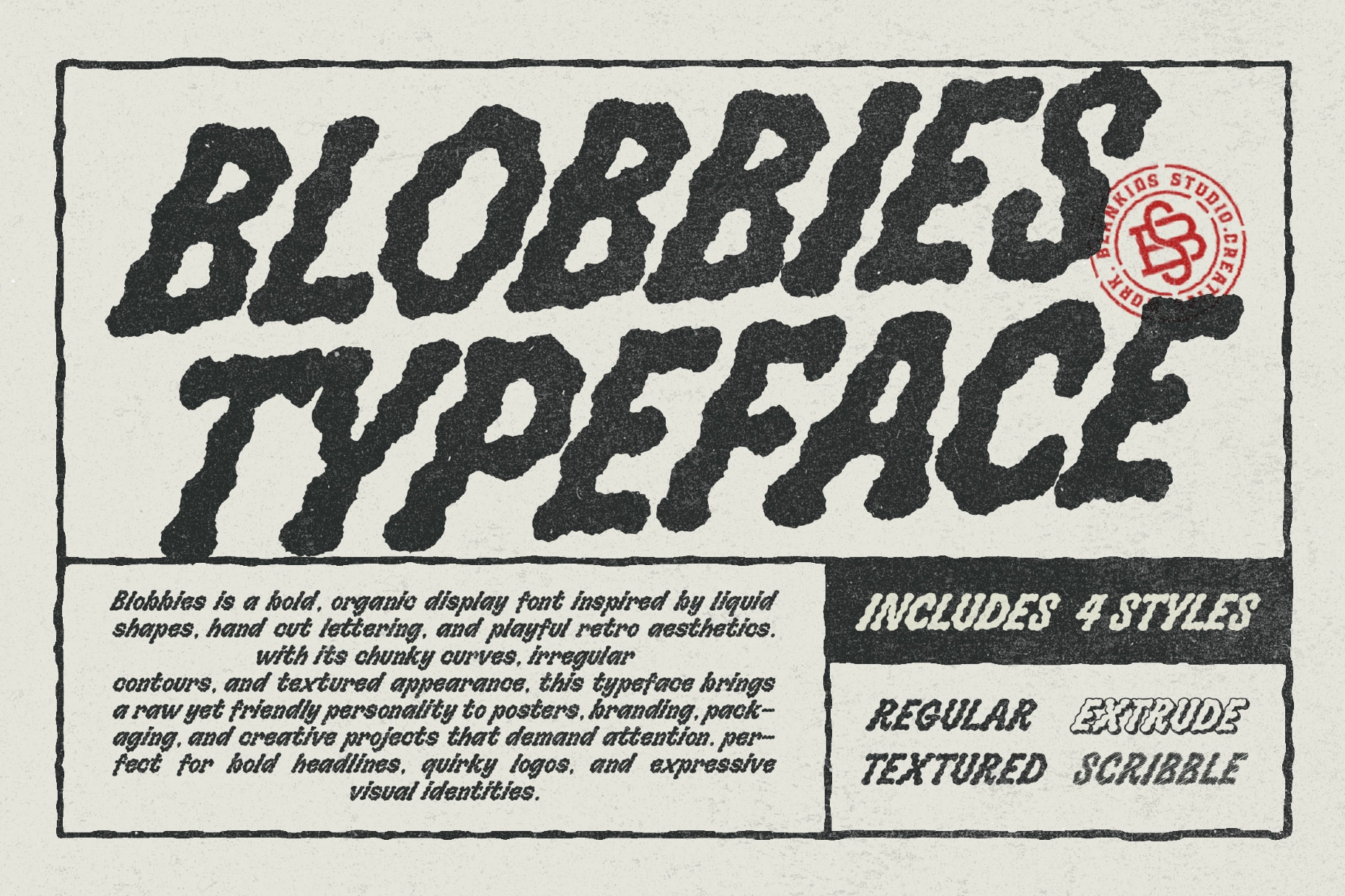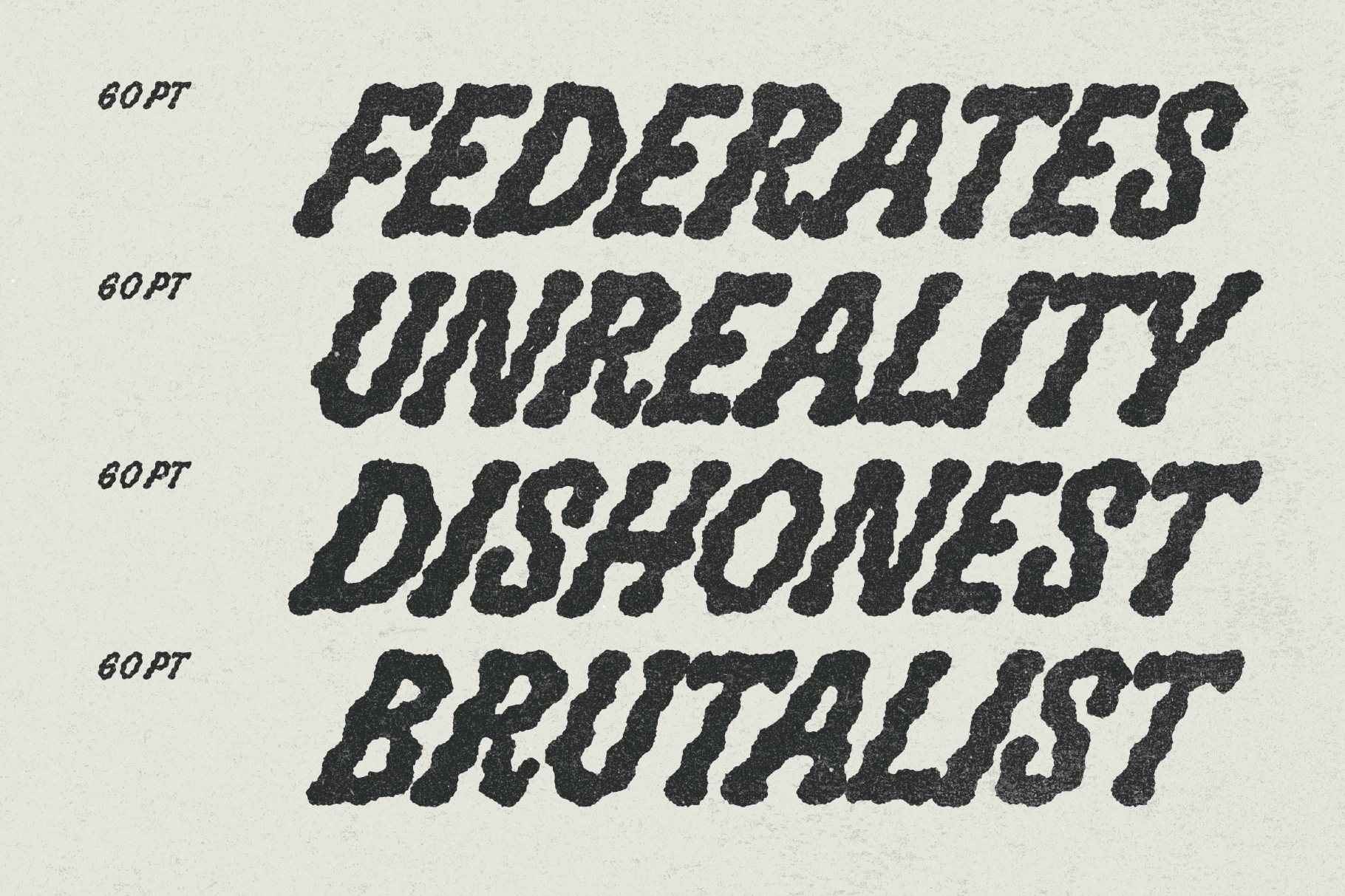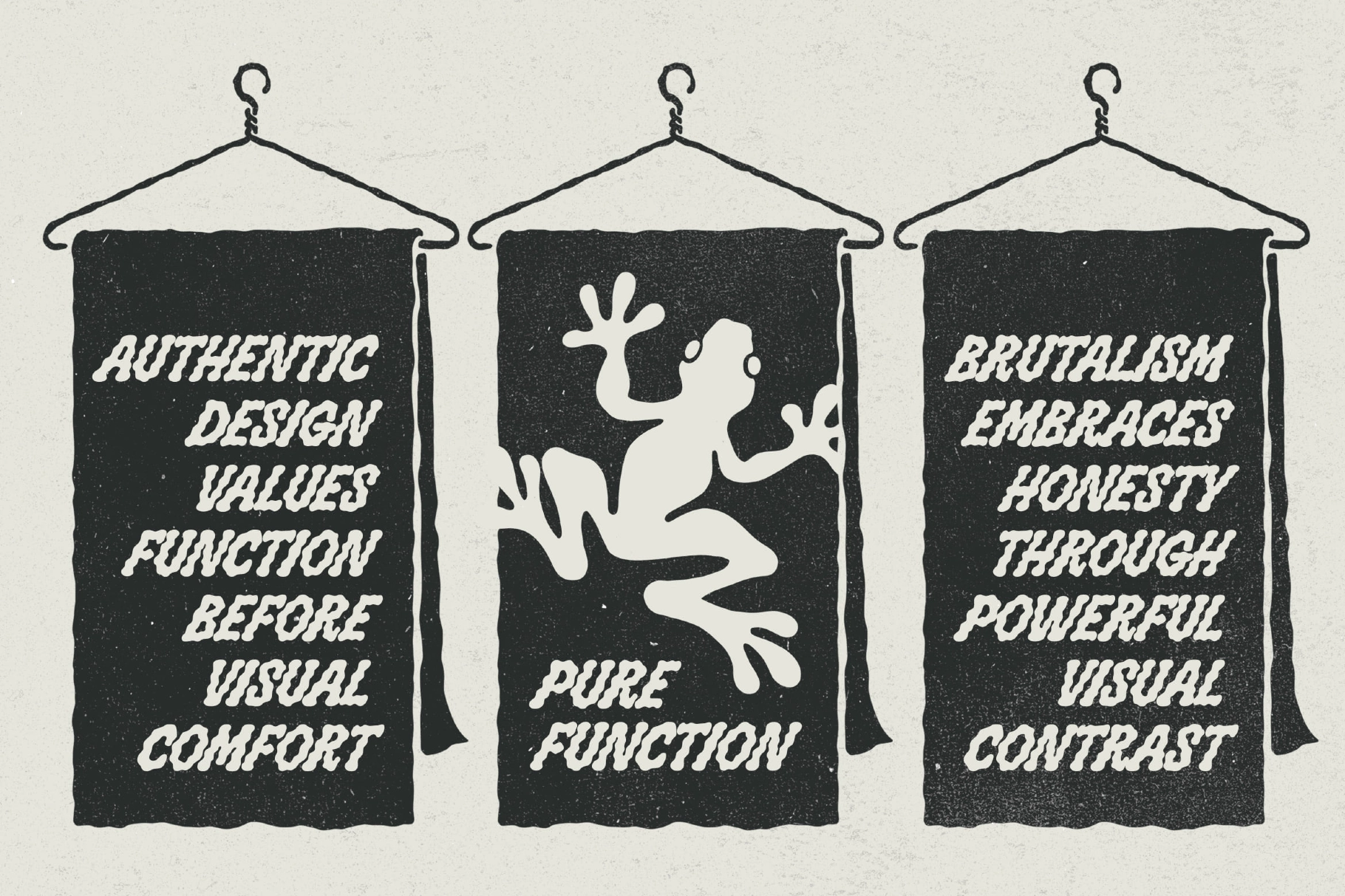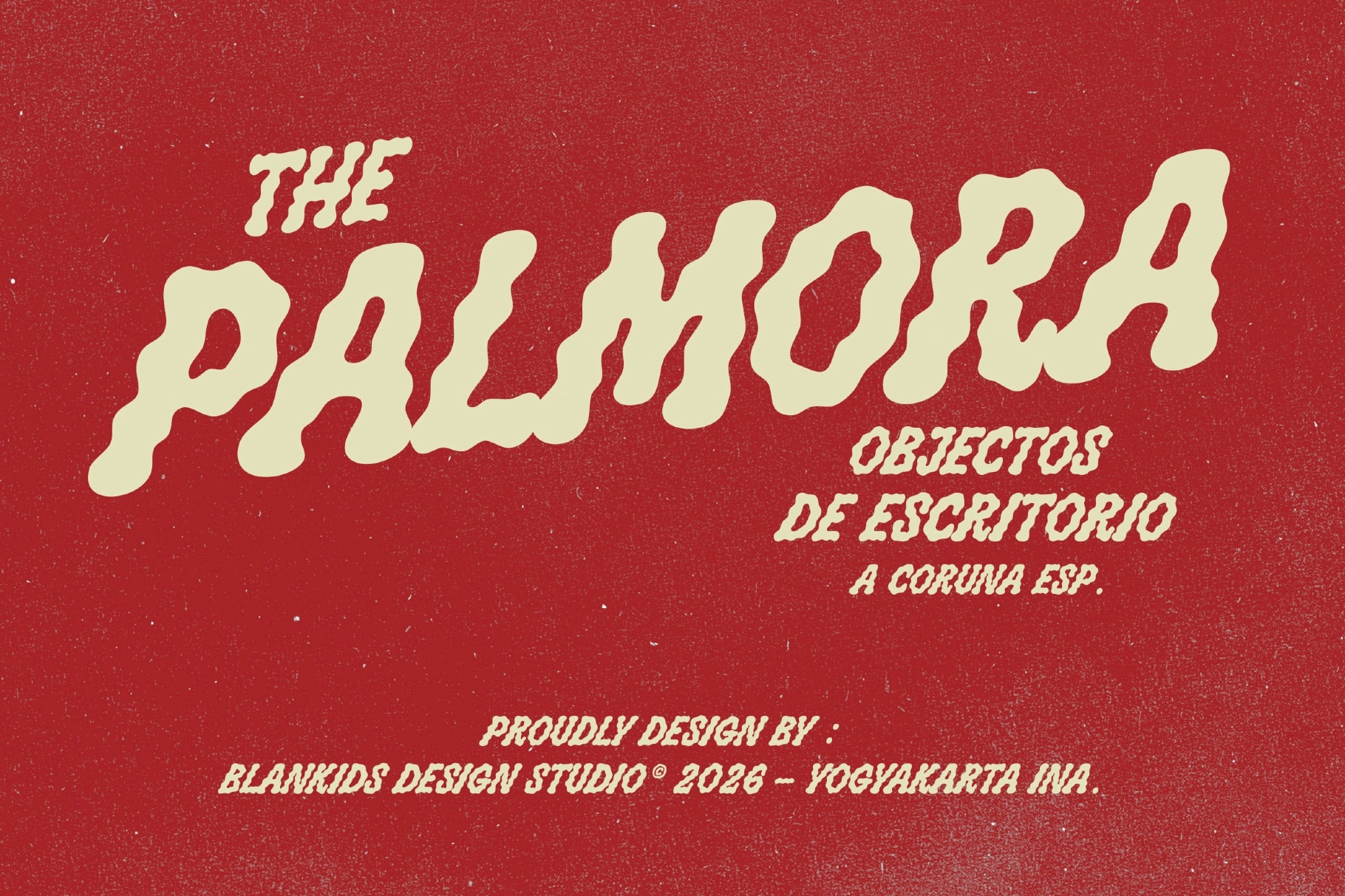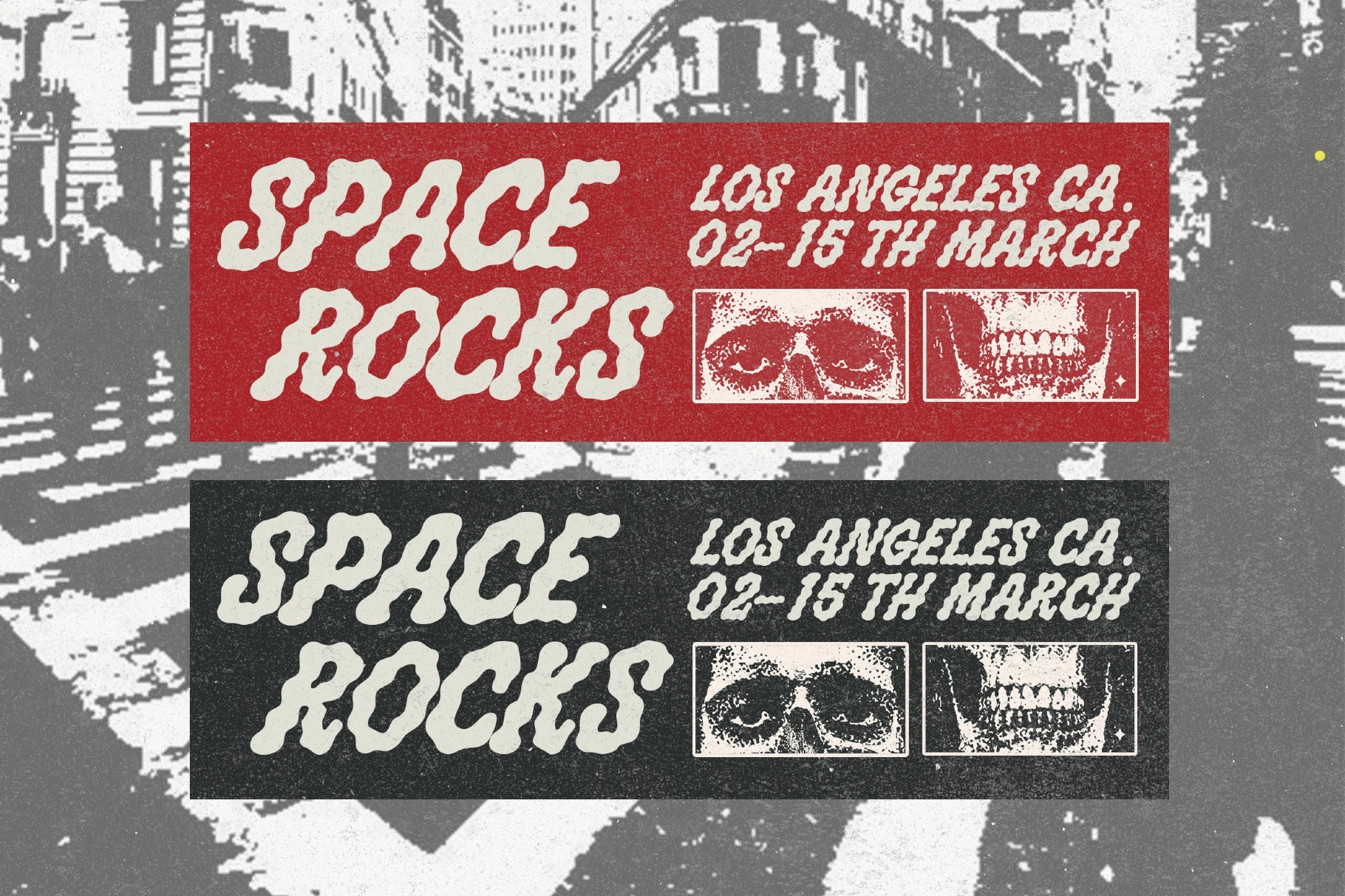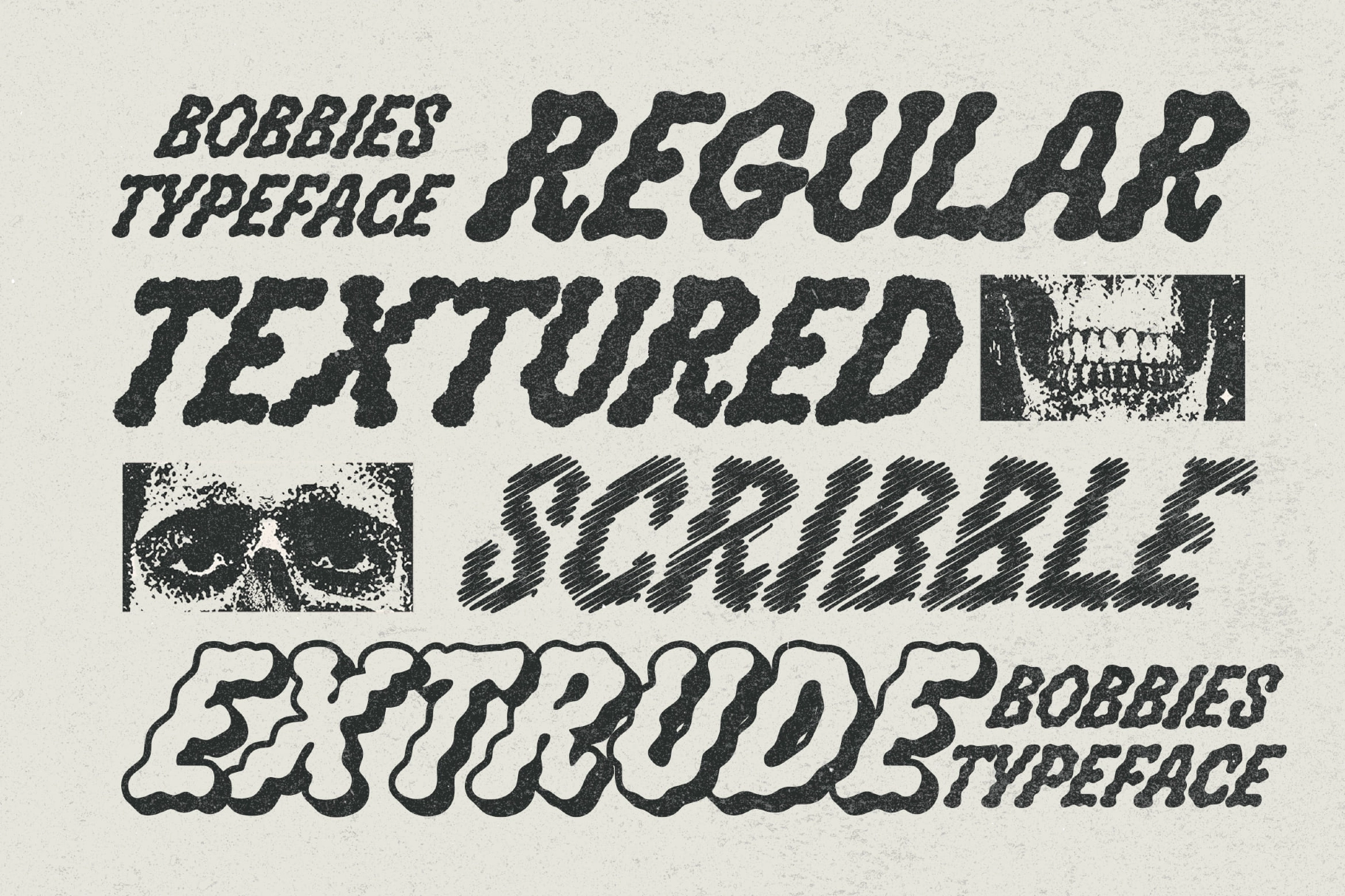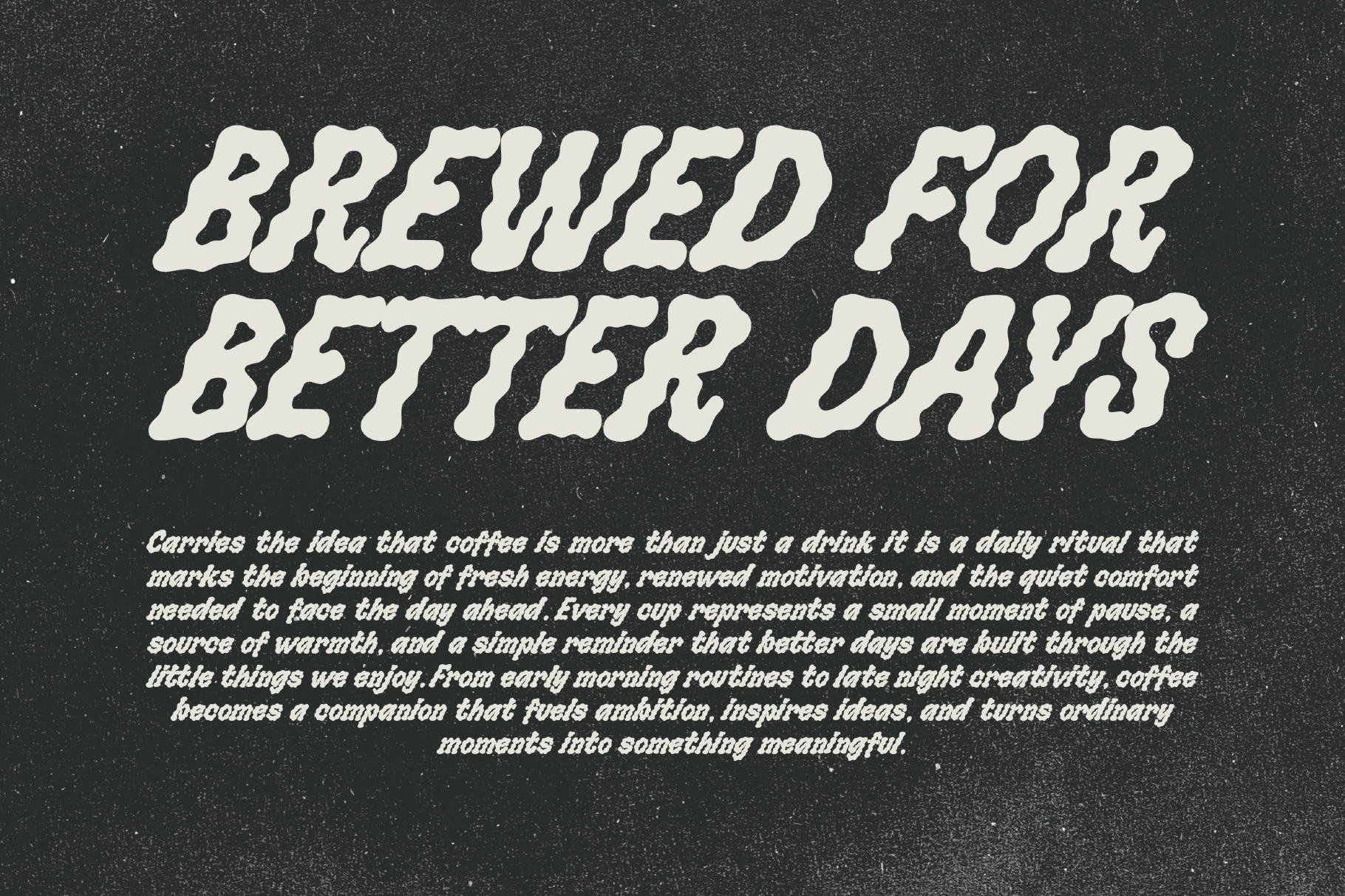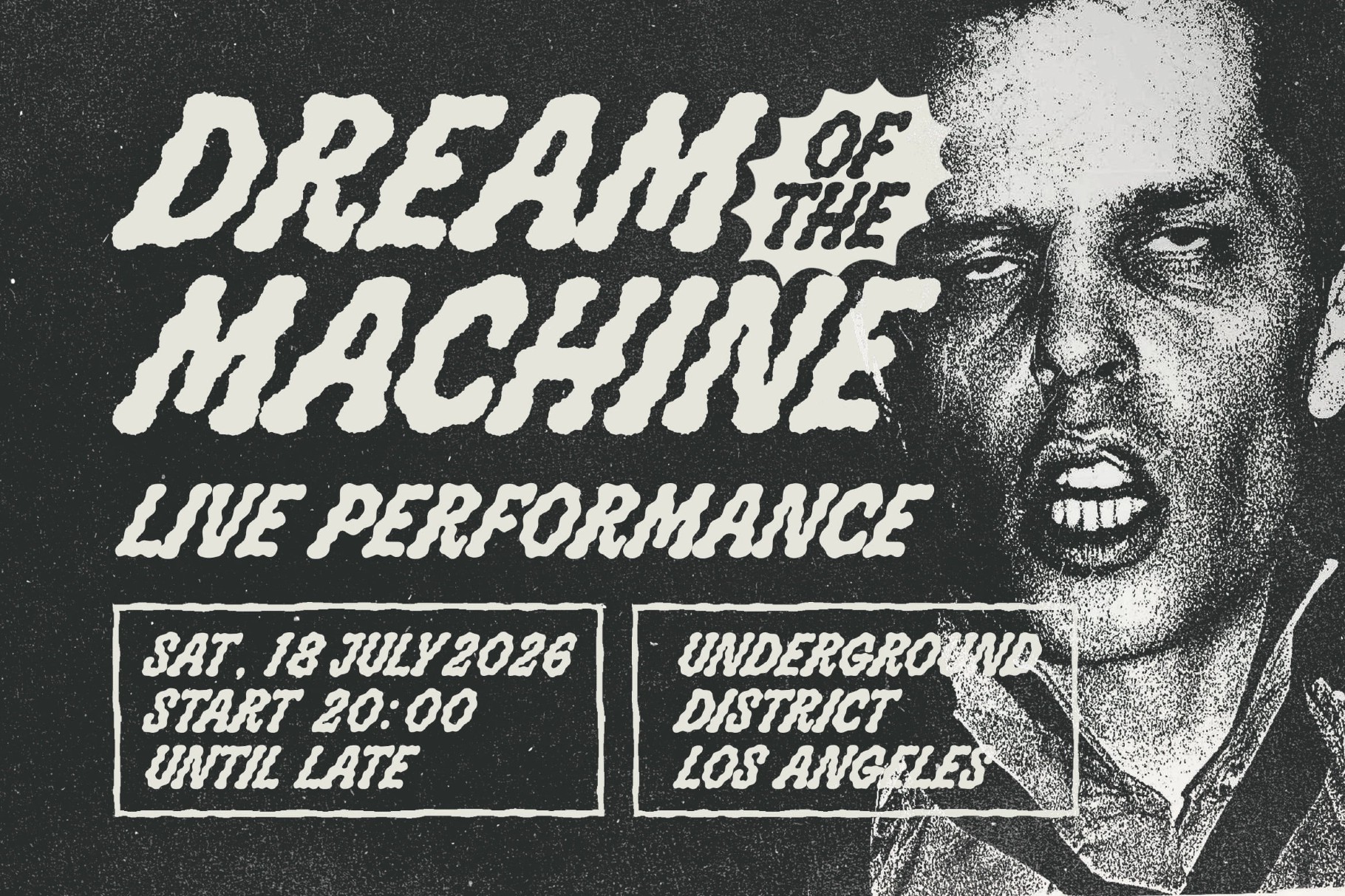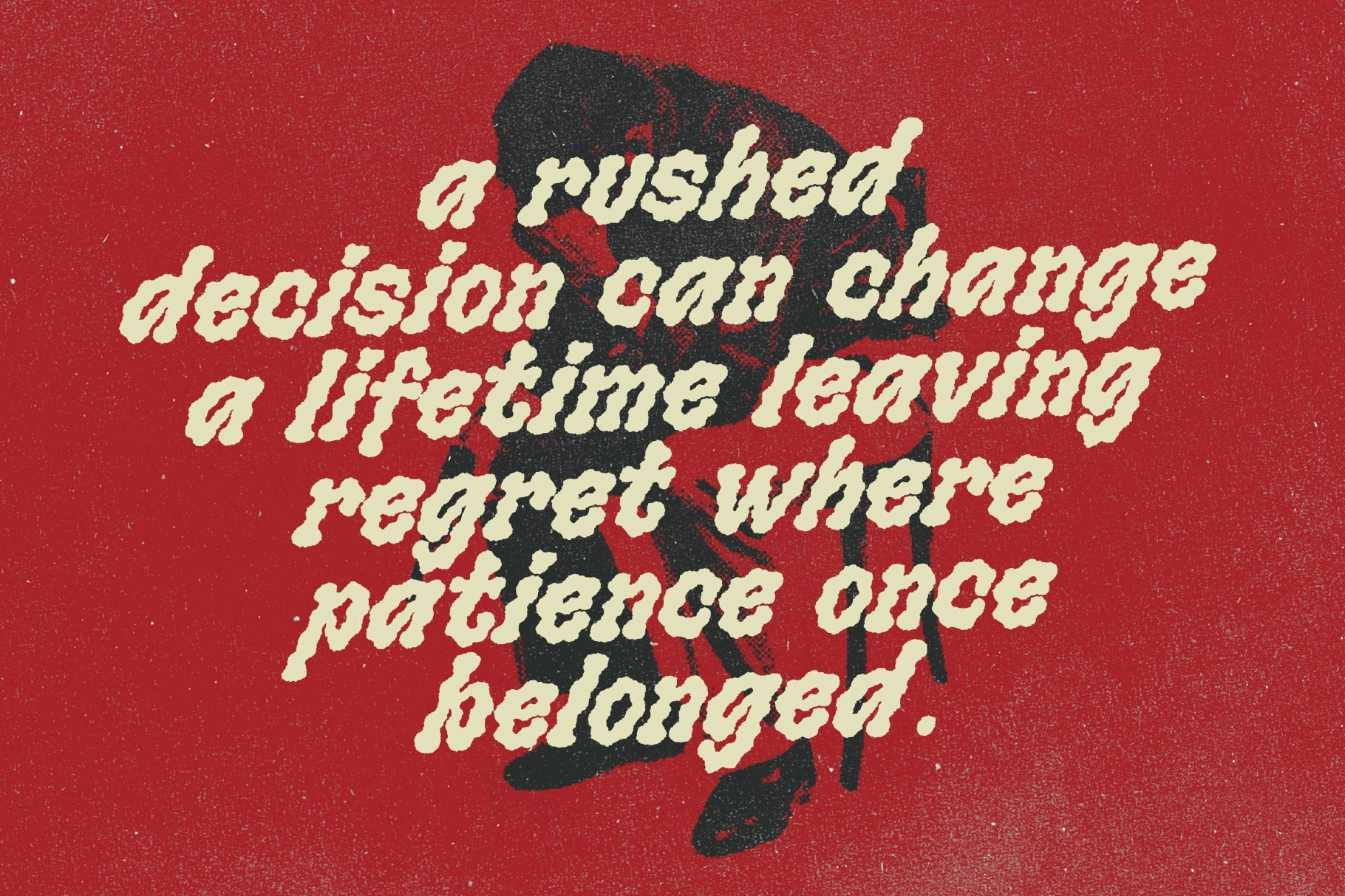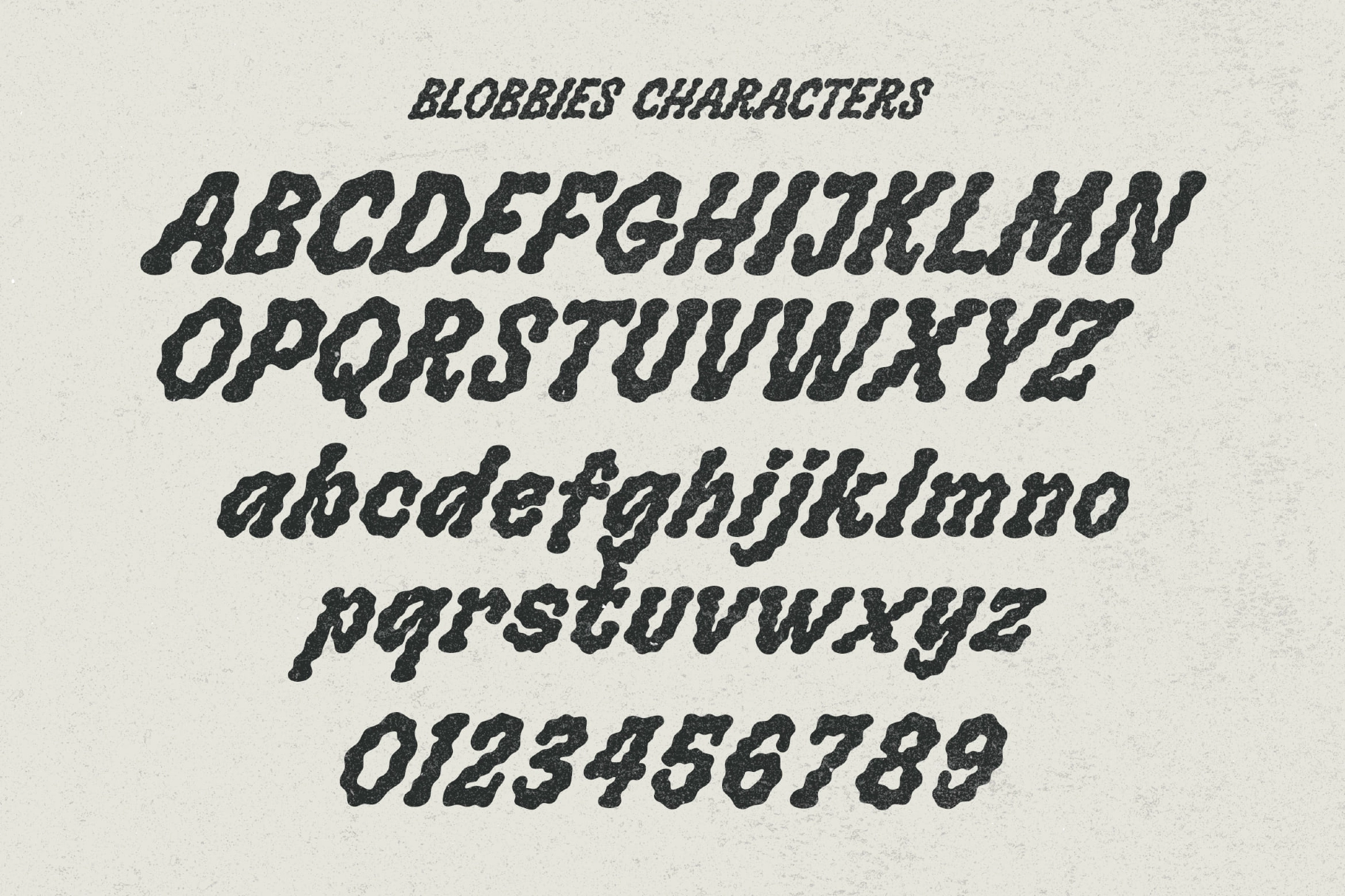
Bloobies – Distressed Hand Drawn Display Font
Blobbies is a distressed hand-drawn display font built from wobbly, ink-blotted letterforms that look stamped rather than typed — curves swell and pinch like a rubber stamp pressed too hard into wet paper. Four styles push that same skeleton into different textures: Regular keeps the blotted edge clean, Textured adds a scratchy risograph grain, Extrude puffs the outline into a rounded block, and Scribble shreds everything into hatched pencil lines.
The family settles into punk flyers, zine covers, and streetwear branding, and it holds up just as well on band merch, album covers, and packaging that wants a hand-cut, photocopied edge instead of a polished vector look.
- 4 styles: Regular, Textured, Extrude, Scribble;
- uppercase & lowercase;
- numerals & punctuation;